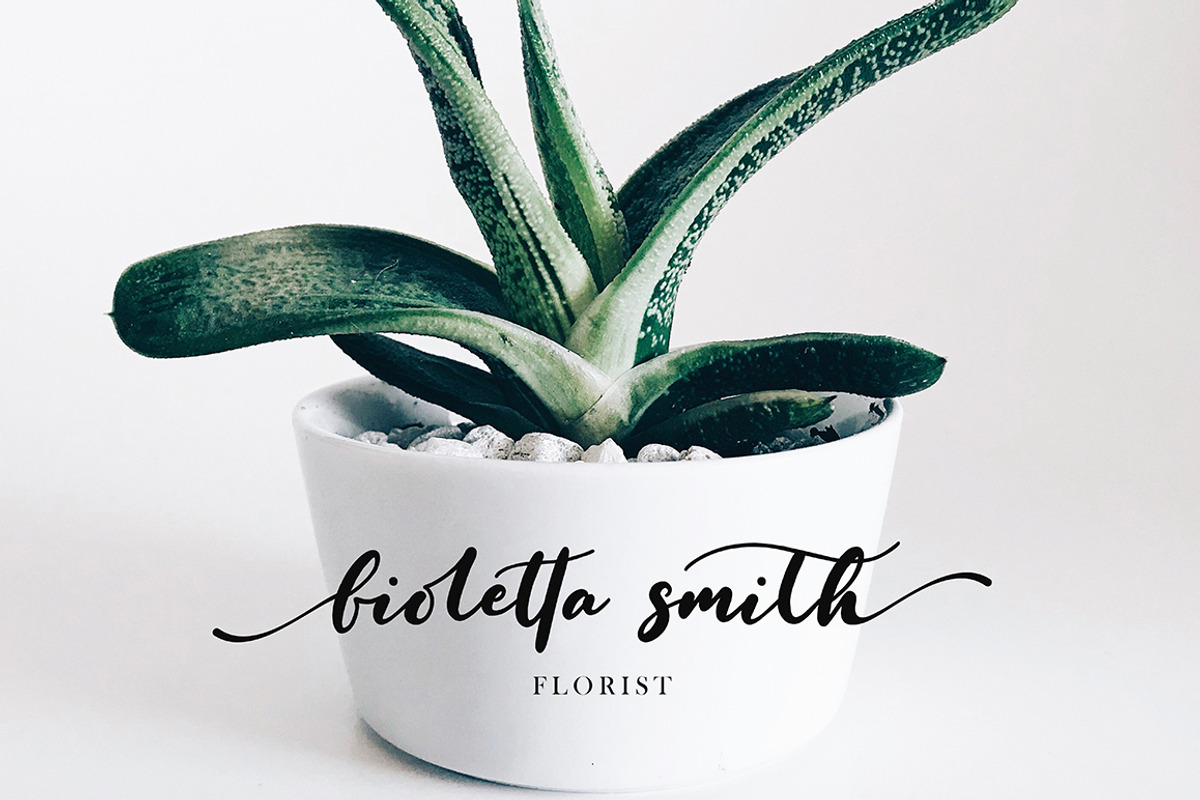
Fioletta Smith modern script font with modern style, this font will perfect for many different project ex: quotes, logo, blog header, poster, wedding, banding, fashion, apparel, letter, invitation, stationery, etc... ... ... ... You can find my Bundle here : 51 Handwritten Fonts Collection https://creativemarket.com/Missinklabstudio/2148749-51-Handwritten-Fonts-Collection